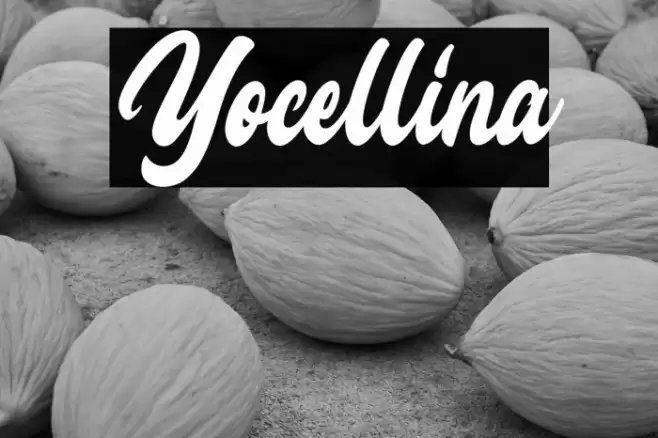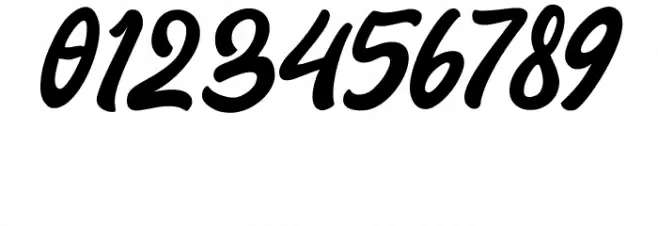
Yocellina Font
Yocellina Description
This font exudes a lively and dynamic character with its bold, flowing script style. The letters are interconnected, creating a sense of continuity and movement. The uppercase letters are slightly more ornate, with elegant curves and flourishes, while the lowercase letters maintain a consistent, smooth flow. The numbers are equally bold and maintain the same fluid style, making them easily readable. This font's design is both expressive and versatile, suitable for a variety of creative applications. The overall appearance is modern yet retains a classic script charm, making it ideal for projects that require a personal touch.
A bold, flowing script font with interconnected letters and a dynamic style from Regular fonts.
- Font: Yocellina
- Proposed Projects: Ideal for wedding invitations, greeting cards, branding, and logo design.
- Character Spacing: Tight
- Use Case: Logos, Headlines, Invitations